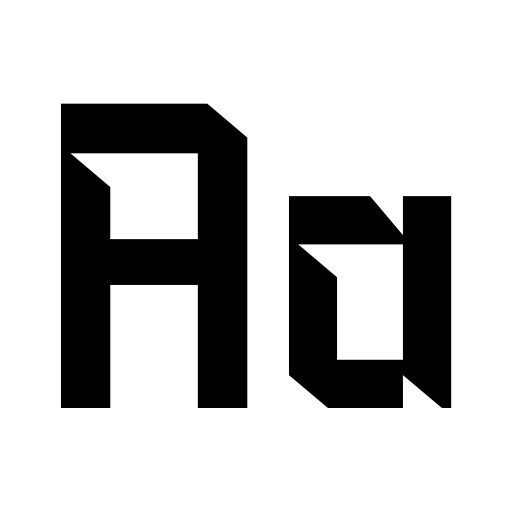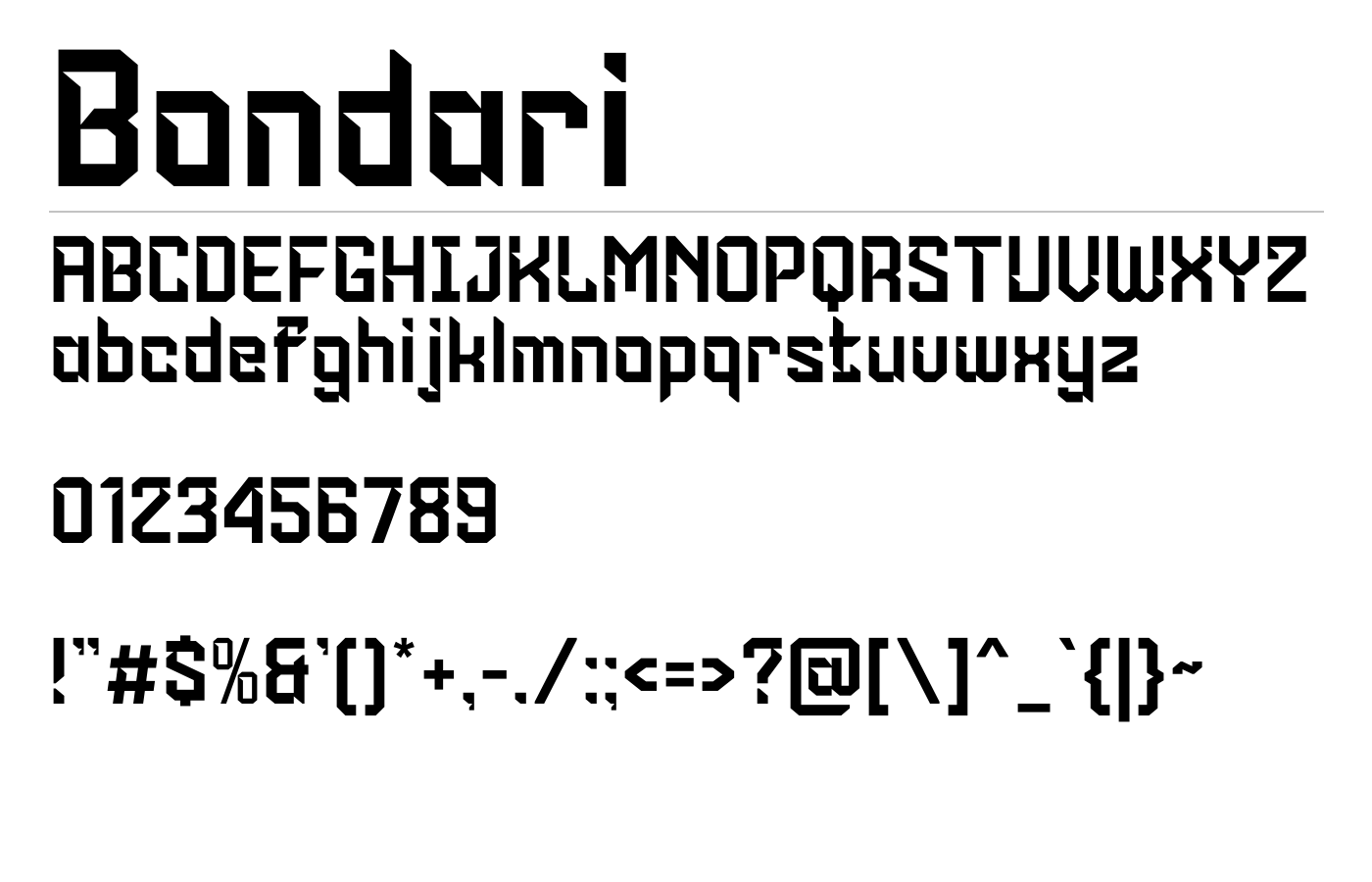
Bondari is a bold, angular sans serif font with a strong geometric structure and sharp edges, giving it a modern yet slightly industrial feel. Its condensed width and high x-height create a compact and impactful appearance, ideal for striking headlines and branding that demands attention. This font works well in edgy, contemporary designs where a sense of strength and uniqueness is desired.
Bondari Font
About Bondari Font
| Font family | Bondari Font |
| Designer | Muhamad Yusron Billah |